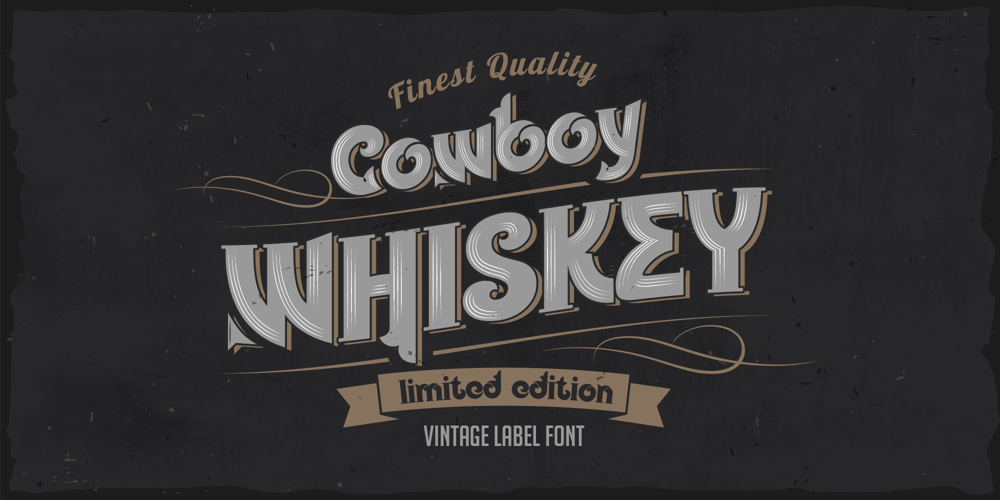
Cowboy Whiskey TT Font Family was designed by Evgeny Dneprovsky and published by Fractal Font Factory. Cowboy Whiskey TT contains 3 styles and family package options. Cowboy whiskey – vintage layered font. Good for labels, logos, headlines and more.Contains 3 fonts, base, decorative layer, and generalized.